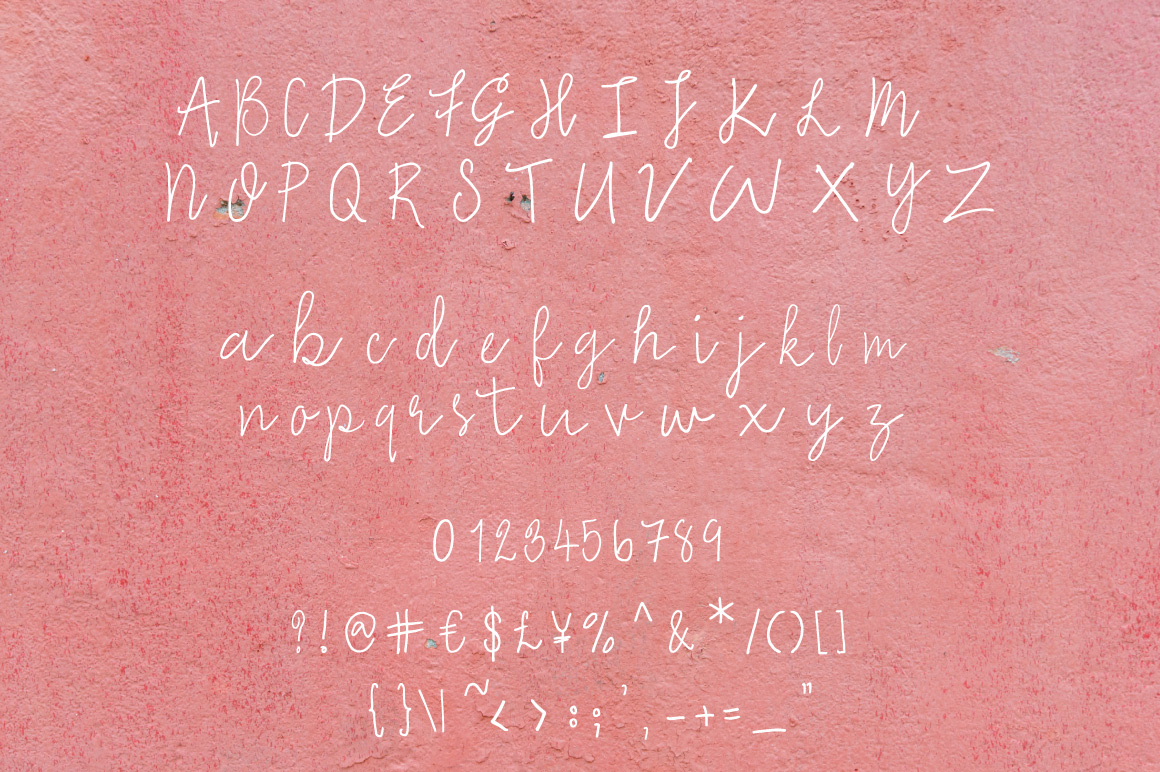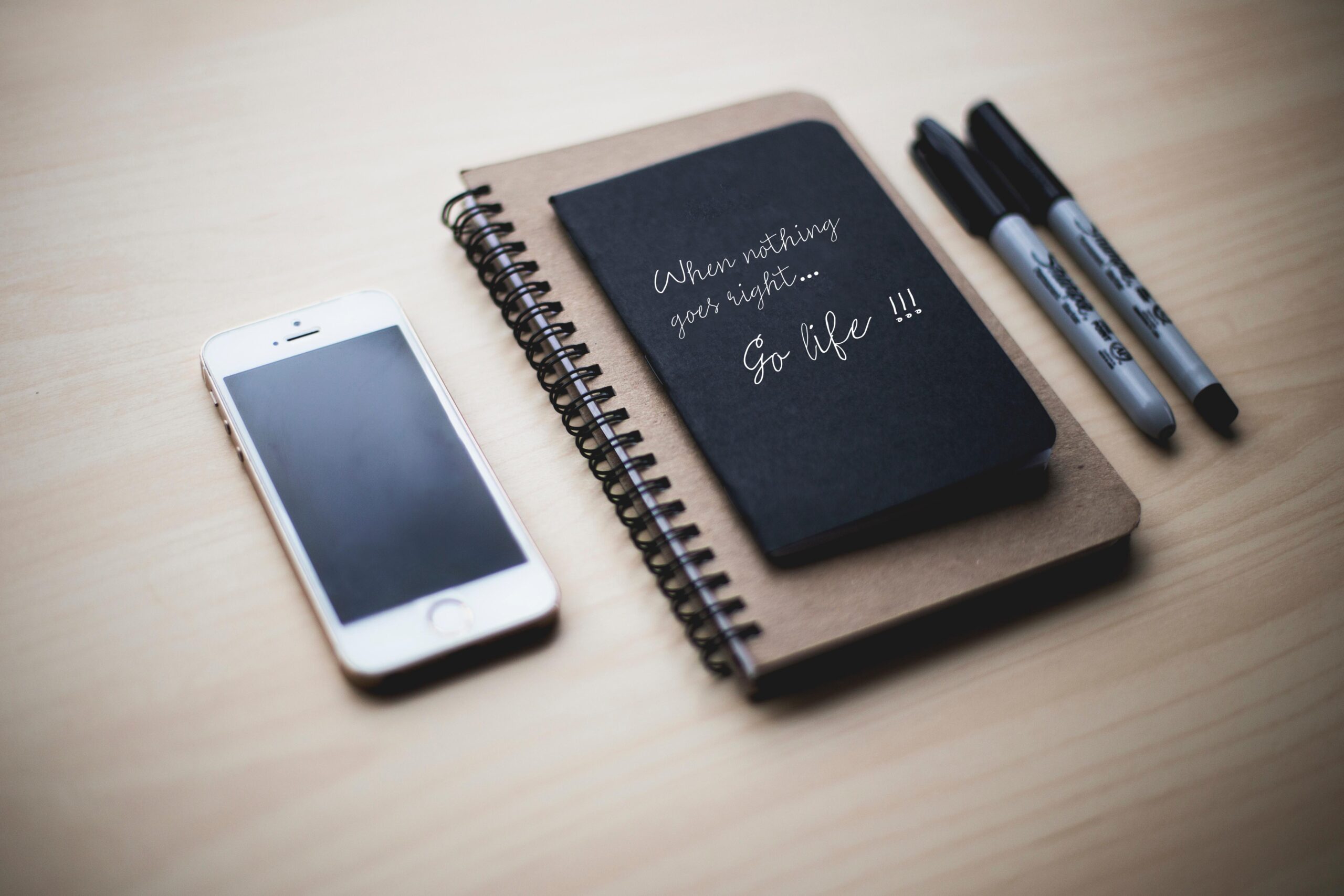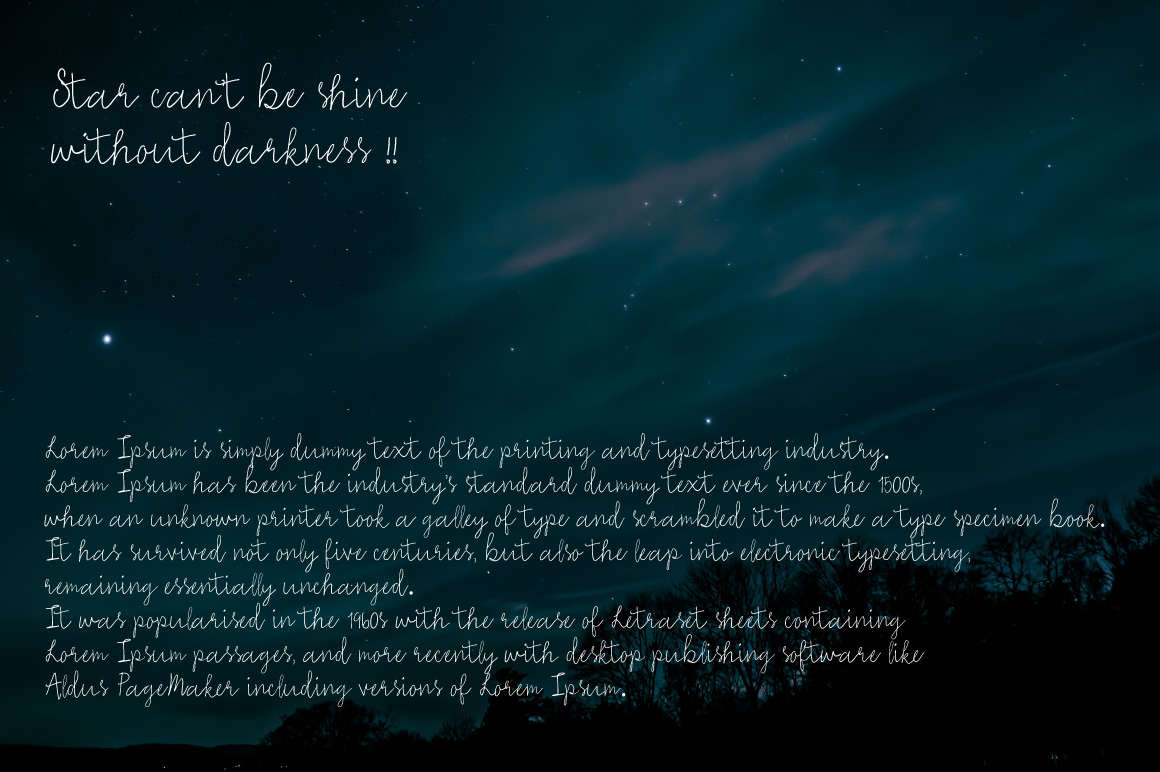
HomeScript FontsEmma Font Script Fonts Emma Font FacebookXPinterestWhatsApp Emma Font Poster 2 Emma Font Poster 3 Emma Font Poster 4 About Emma Font Emma is a simple, clean hand written script with a signature style that works great for personalizing your designs. DOWNLOAD NOW People also explored Scandya Script Font Artella Font Intellecta Typewriter Richmonte Font Dreamis Font Autism Font Golict Font Swedish Creme Font Brown Cakes Font 253 0 TagsEmma Font Previous articleAqilla FontNext articleMalina Font LEAVE A REPLY Cancel reply Comment: Please enter your comment! Name:* Please enter your name here Email:* You have entered an incorrect email address! Please enter your email address here Website: Save my name, email, and website in this browser for the next time I comment. Personal Use Free Aseline Personal Use Free Read more about this font Amellis Path Personal Use Free Read more about this font Mariyam Personal Use Free Read more about this font Expaing Personal Use Free Read more about this font BLOG Using Fonts in Digital Marketing: Tips to Strengthen Your Brand Identity In the realm of digital marketing, every visual element plays a crucial role in shaping a brand's identity, and fonts are no exception. The... The 10 Best Handwriting Fonts to Add Personality to Your Designs How to Install and Use Fonts on Windows, macOS, and Web Projects To increase your work productivity, choose the most readable fonts.